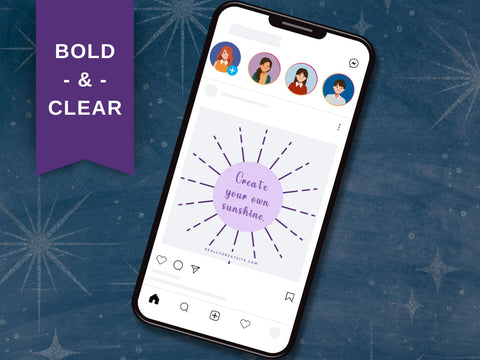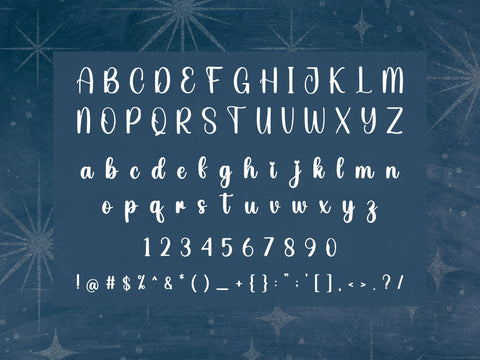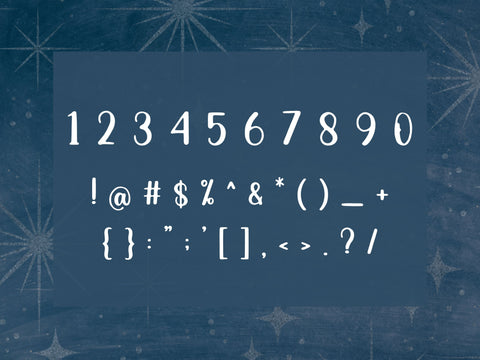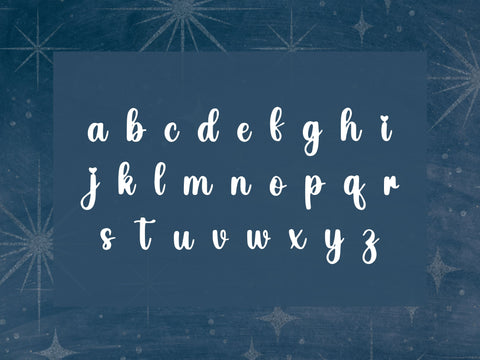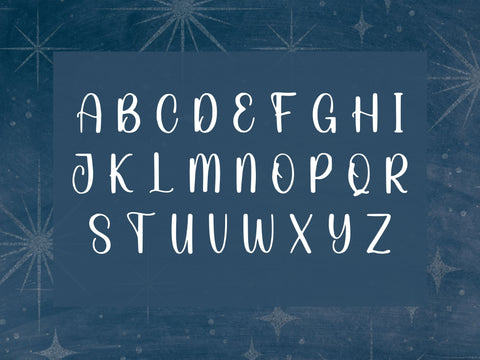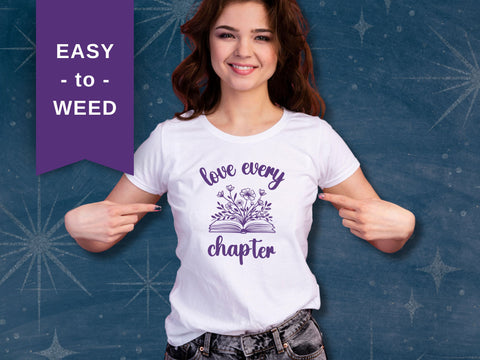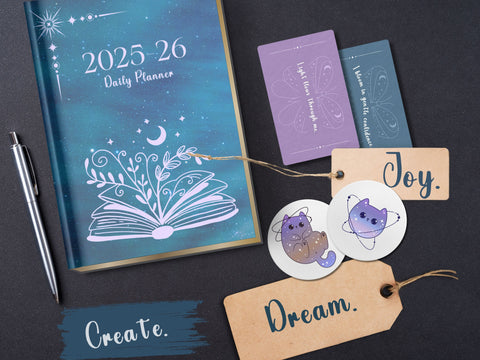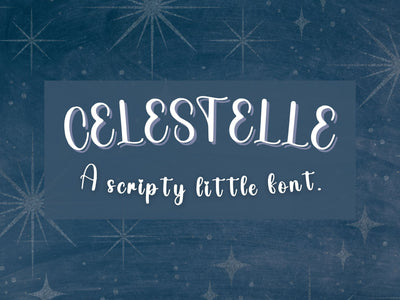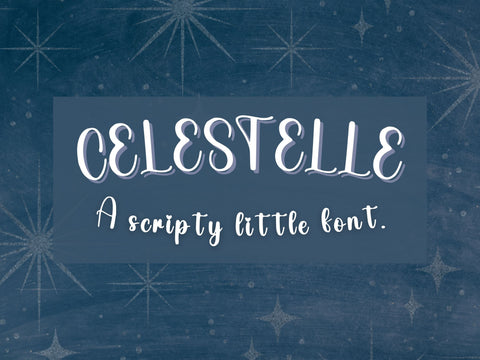
Cellestelle - Lettering Script Font
Cellestelle is a bold, handwritten style script font with thick, confident strokes and delicate curves that evoke the warmth of a personal touch. Inspired by the charm of classic brush lettering, it brings a friendly yet sophisticated feel to every project—whether you’re designing playful planner covers, romantic wedding stationery, or eye-catching social-media graphics. License includes template usage along with Standard Commercial Use License.
✔ Uppercase & lowercase letters
✔ Numbers & punctuation
Perfect for:
Wedding invitations, save-the-dates & RSVP cards
Digital planners, stickers & journaling pages
Logo badges, branding elements & monograms
Gift tags, packaging & signage
Social-media quotes, printable art & greeting cards